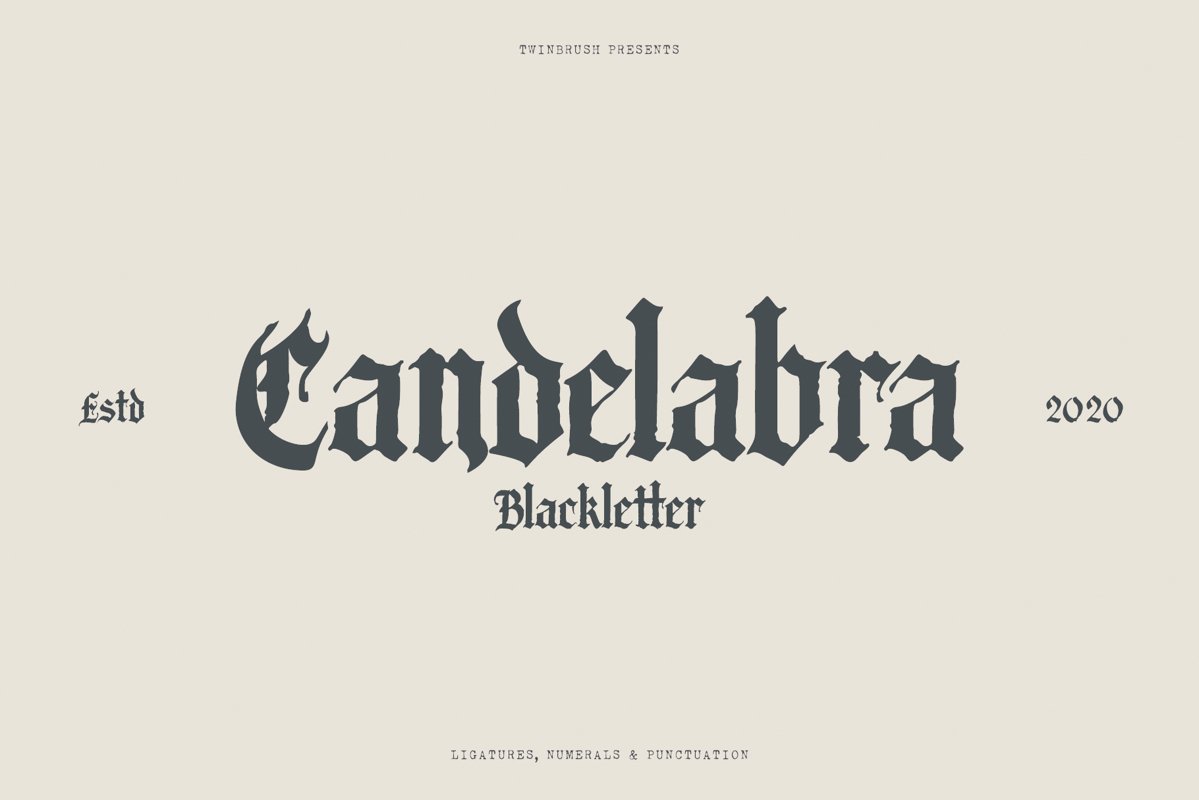
Candelabra Blackletter Font
Candelabra
Introducing Candelabra, a medieval and fantasy inspired blackletter font. Letting out my inner nerd :P with this one!
Candelabra is a blackletter font full of medieval mysticism and age. An ideal choice for tattoo studios, band logos and album art, trendy fashion apparel, book covers, game design, packaging design and more. Historical and modern aesthetics are both easily achieved with this personality rich font.
Upper and lowercase letters are included, along with ligatures, numerals and punctuation. (See preview image for the full character map.)